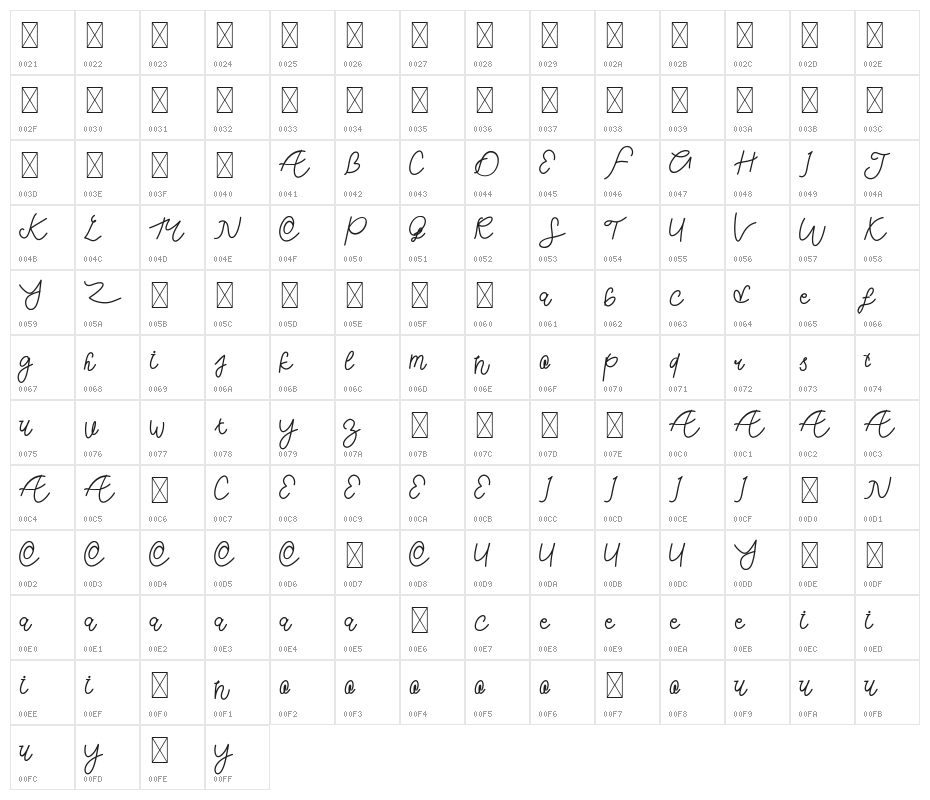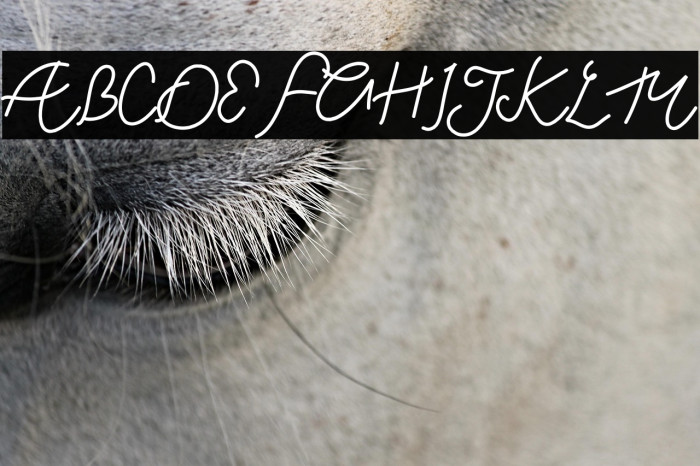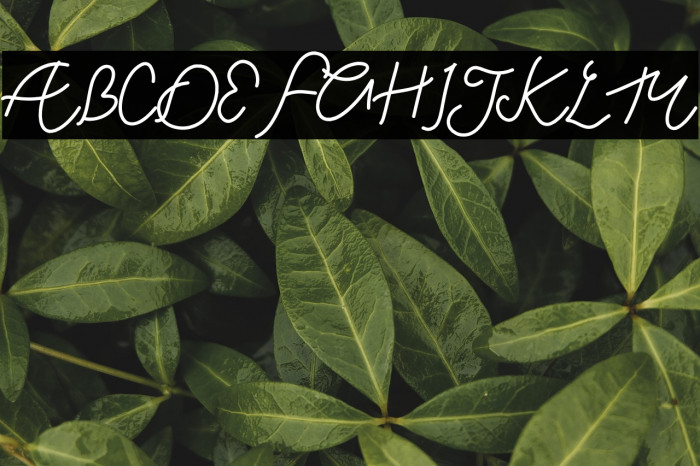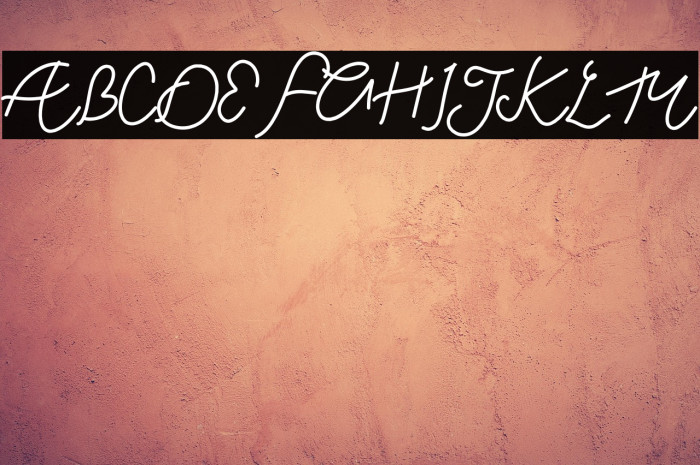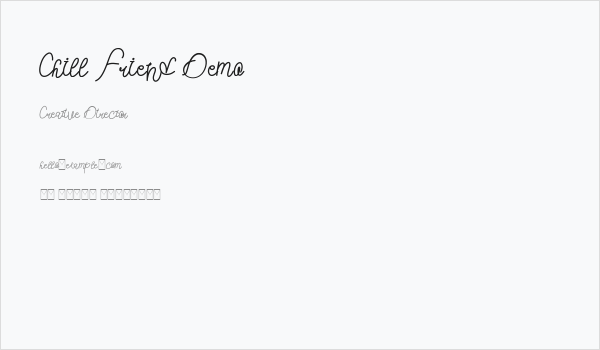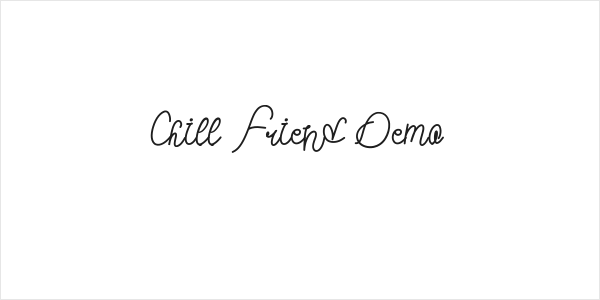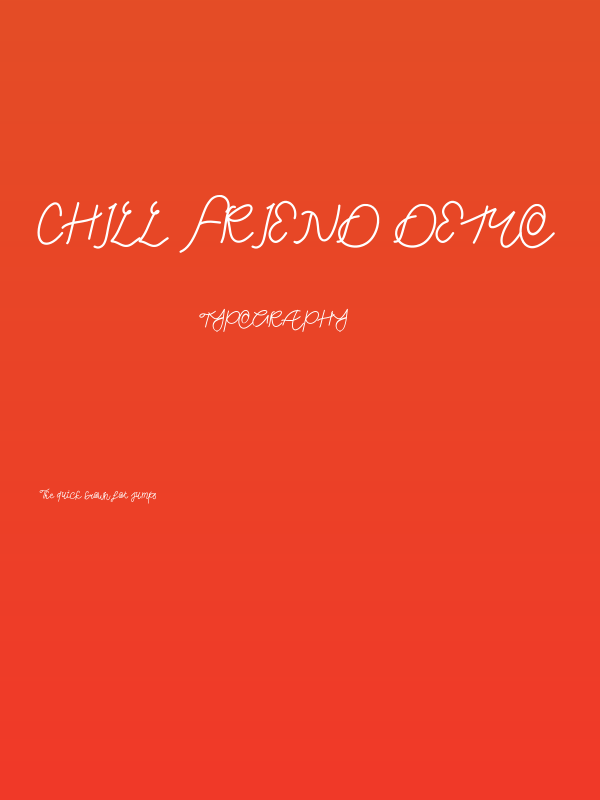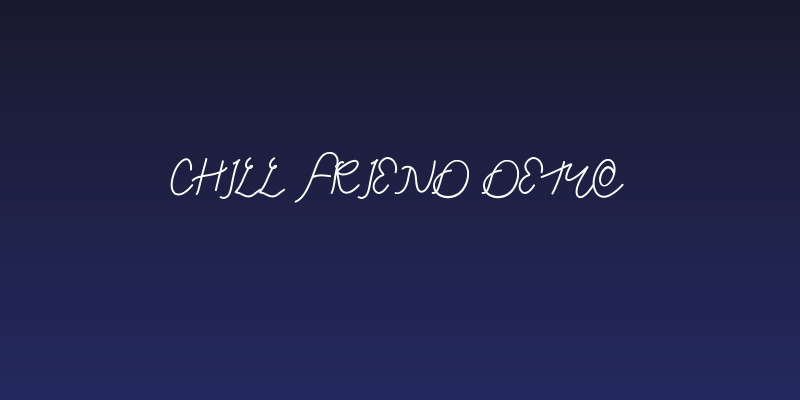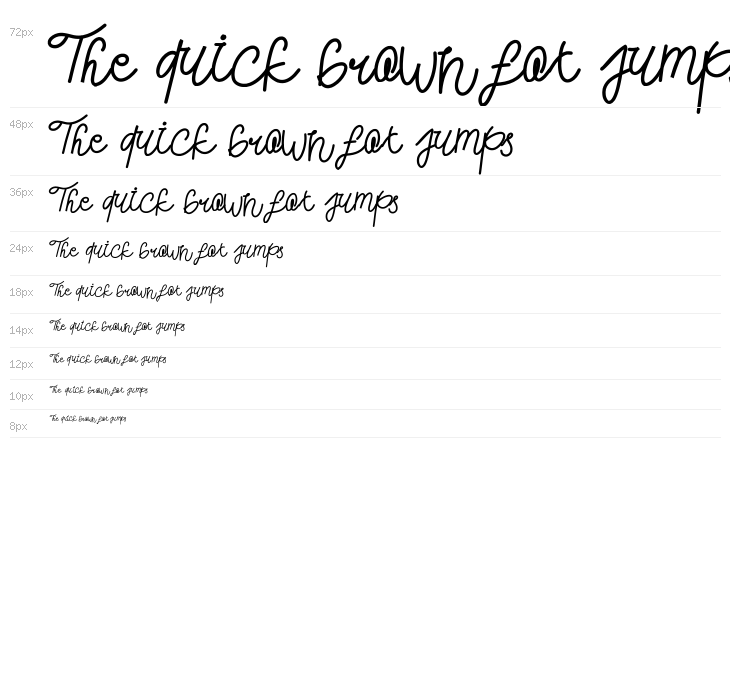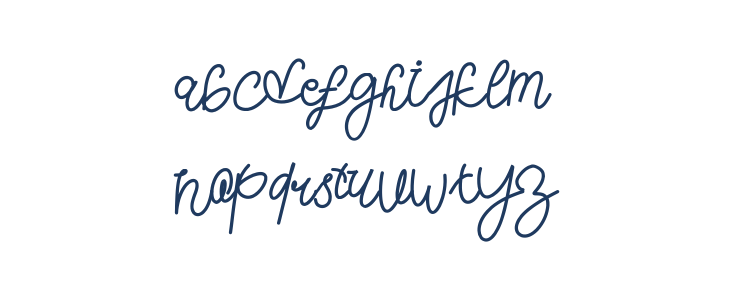
Chill Friend Demo Font
Chill Friend Demo Description
This font features a fluid and elegant cursive style, characterized by its smooth, flowing lines and graceful curves. The uppercase letters exhibit a sophisticated flair with exaggerated loops and swashes, while the lowercase letters maintain a consistent, connected script that enhances readability. The overall design is reminiscent of traditional calligraphy, yet it retains a modern touch that makes it versatile for various applications. The absence of special characters suggests a focus on alphabetic and numeric representation, making it ideal for artistic and decorative purposes.